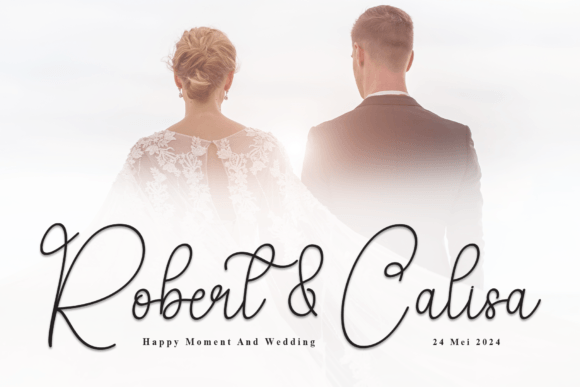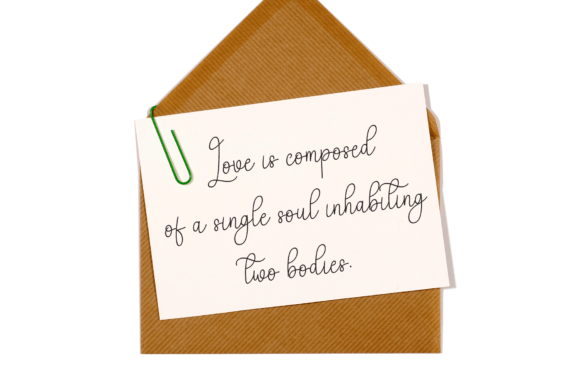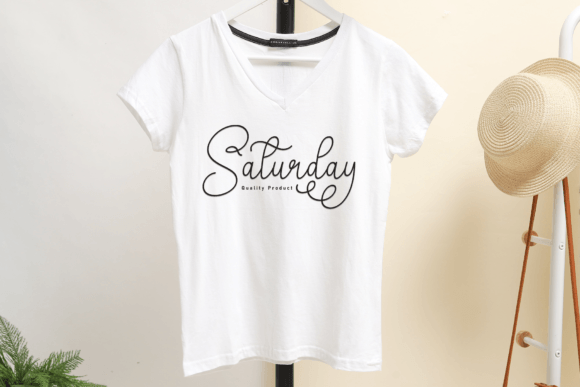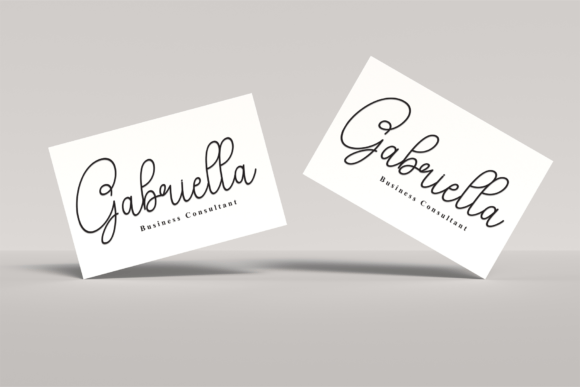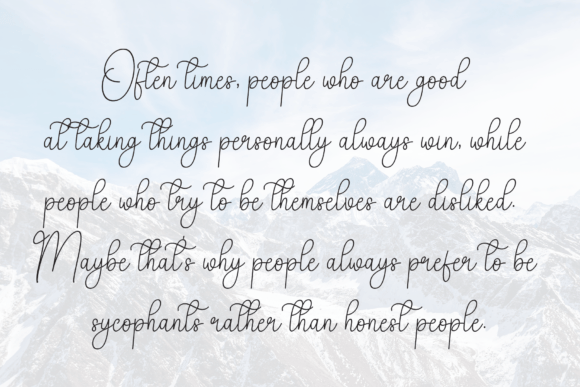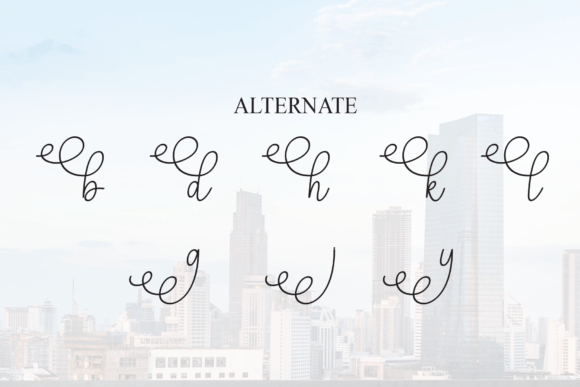
Introducing Building Font: A Sweet and Friendly Handwritten Delight
Are you tired of using the same old fonts in your designs? Look no further! Building Font is a beautiful, sweet, and friendly handwritten font that’s perfect for adding a personal touch to your creations. Its natural and unique style makes it incredibly versatile, and the only limit is your imagination!
The Characteristics of Building Font
Building Font boasts a distinctive handwritten style that’s both elegant and approachable. Its letters are carefully crafted to exude a sense of warmth and friendliness, making it perfect for designs that require a personal touch. The font’s natural flow and subtle imperfections give it a charming, human feel that’s sure to capture the hearts of your audience.
What Makes Building Font So Versatile?
One of the standout features of Building Font is its incredible versatility. Its unique style allows it to seamlessly integrate into a wide range of designs, from:
- Playful and whimsical projects, such as children’s books, greeting cards, and party invitations
- Elegant and sophisticated designs, like branding, packaging, and advertising materials
- Creative and artistic endeavors, including illustrations, comics, and graphic novels
Whether you’re a designer, crafty DIY enthusiast, or simply someone who loves to create, Building Font is the perfect addition to your toolkit.
The Benefits of Using Building Font
So, what sets Building Font apart from other fonts? Here are just a few benefits of using this amazing font:
- Unique and eye-catching: Building Font is sure to grab attention and leave a lasting impression on your audience
- Easy to read: The font’s clear and flowing design makes it easy to read, even at smaller sizes
- Highly versatile: Use Building Font across a range of designs, from digital projects to print materials
- Time-saving: With Building Font, you can create stunning designs in no time, thanks to its effortless elegance and charm
How to Use Building Font in Your Designs
Ready to get creative with Building Font? Here are some tips to help you make the most of this amazing font:
- Pair it with other fonts: Experiment with combining Building Font with other fonts to create stunning contrast and visual interest
- Play with colors: Building Font looks amazing in a range of colors, from bold and bright to soft and pastel
- Add embellishments: Take your designs to the next level by adding fun embellishments, like illustrations or graphics
In conclusion, Building Font is a sweet and friendly handwritten font that’s perfect for designers, crafters, and creatives of all kinds. Its natural and unique style makes it incredibly versatile, and its ease of use makes it a joy to work with. So why wait? Download Building Font today and unleash your creativity!